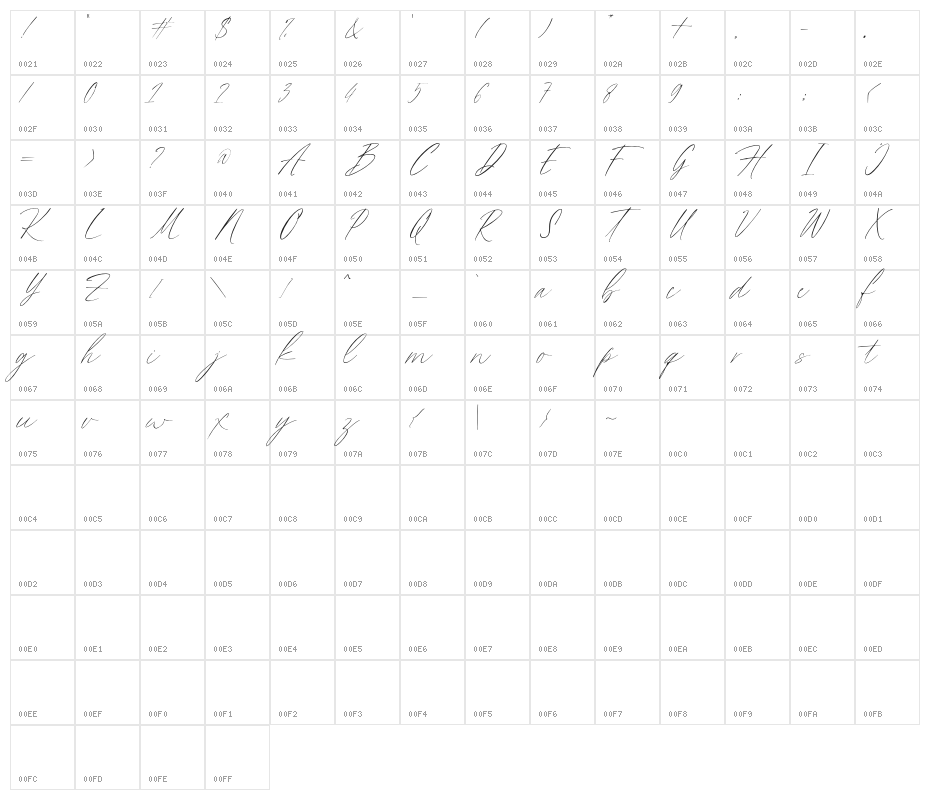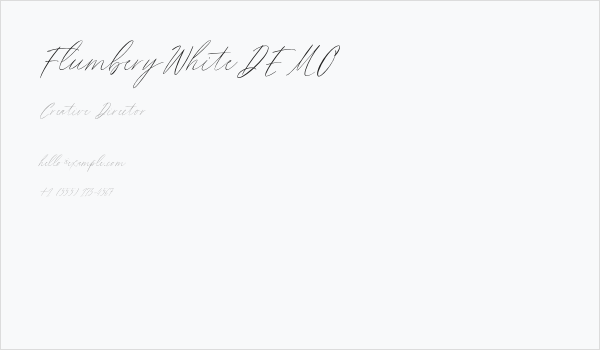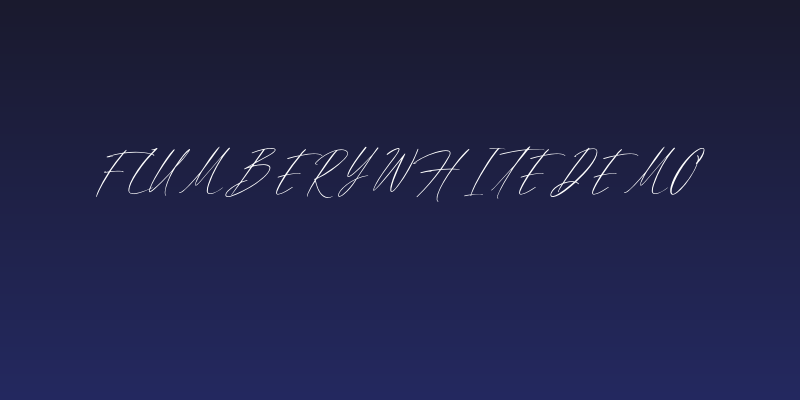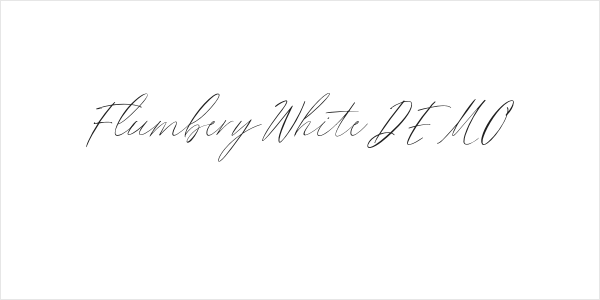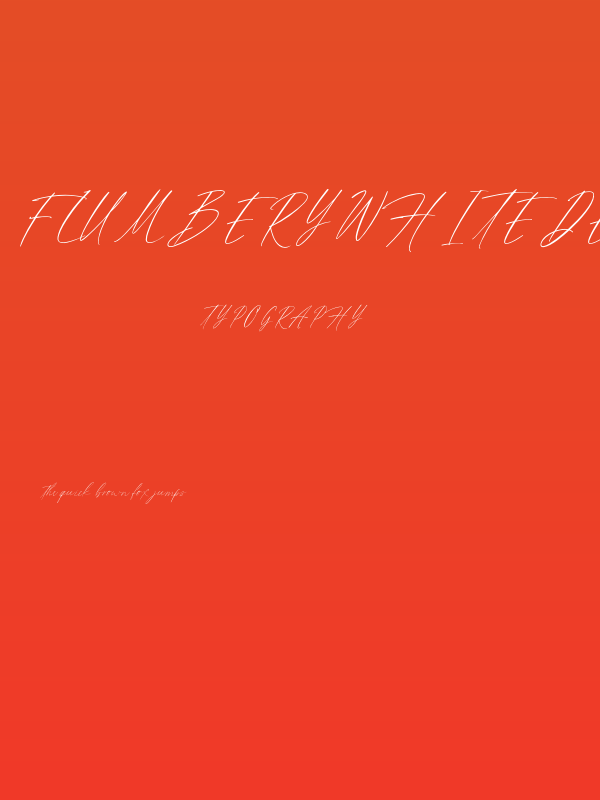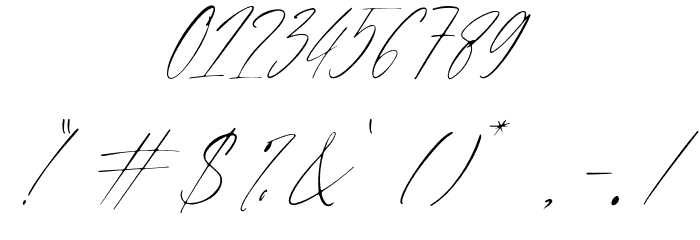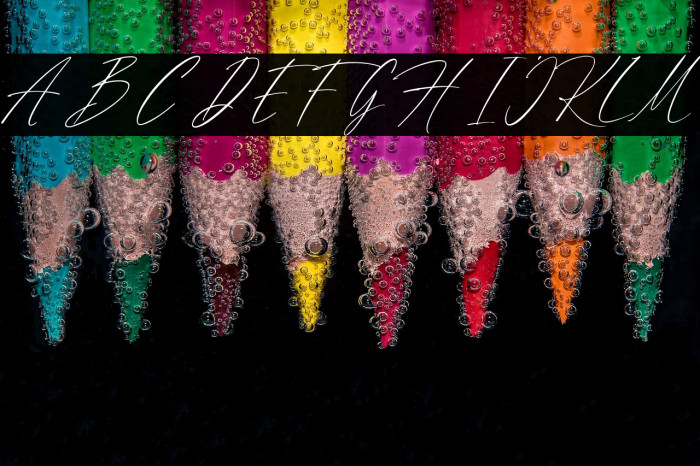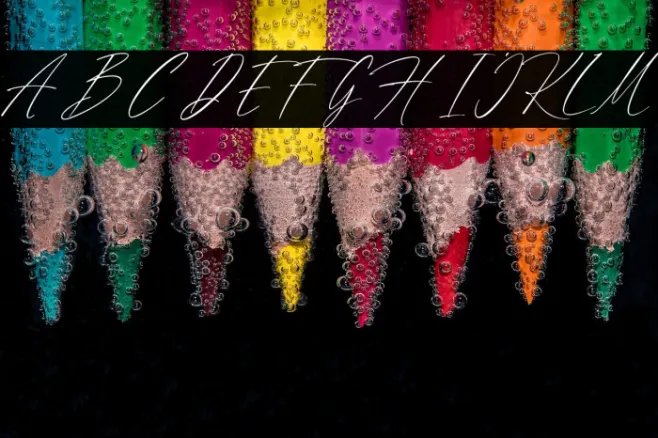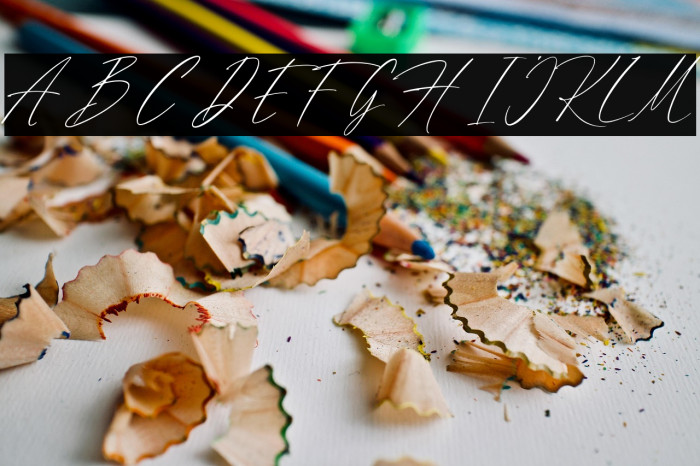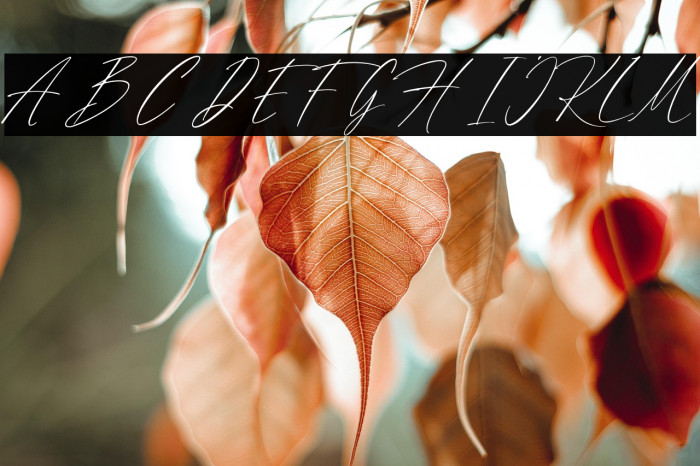
FlumberyWhiteDEMO Font
FlumberyWhiteDEMO Description
This elegant script font features a delicate and flowing design, characterized by its thin, graceful strokes and fluid connections between letters. The uppercase letters exhibit a sophisticated flair with sweeping curves, while the lowercase letters maintain a consistent, cursive style. The numbers and special characters are designed to complement the overall aesthetic, maintaining the same thin, elegant lines. This font exudes a sense of refinement and is ideal for projects that require a touch of elegance and sophistication.
| Proposed Projects | Ideal for wedding invitations, elegant branding, personal stationery, and high-end product packaging. |